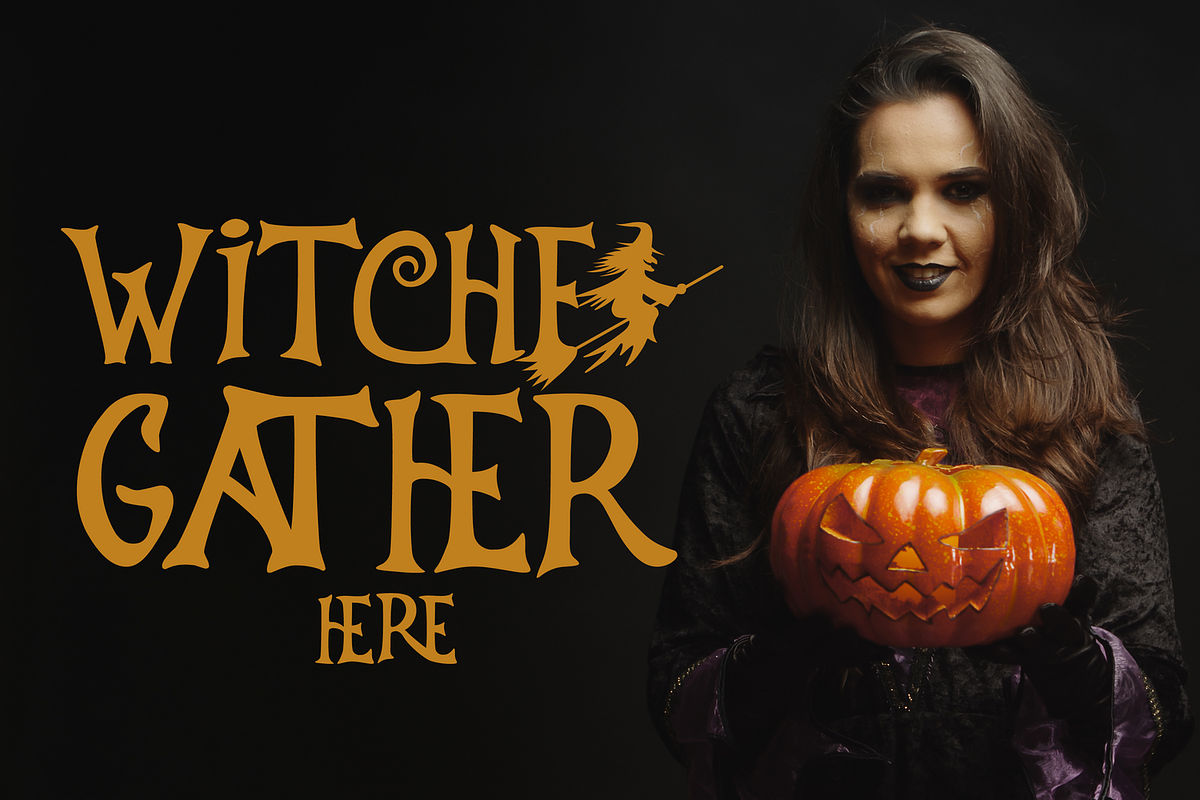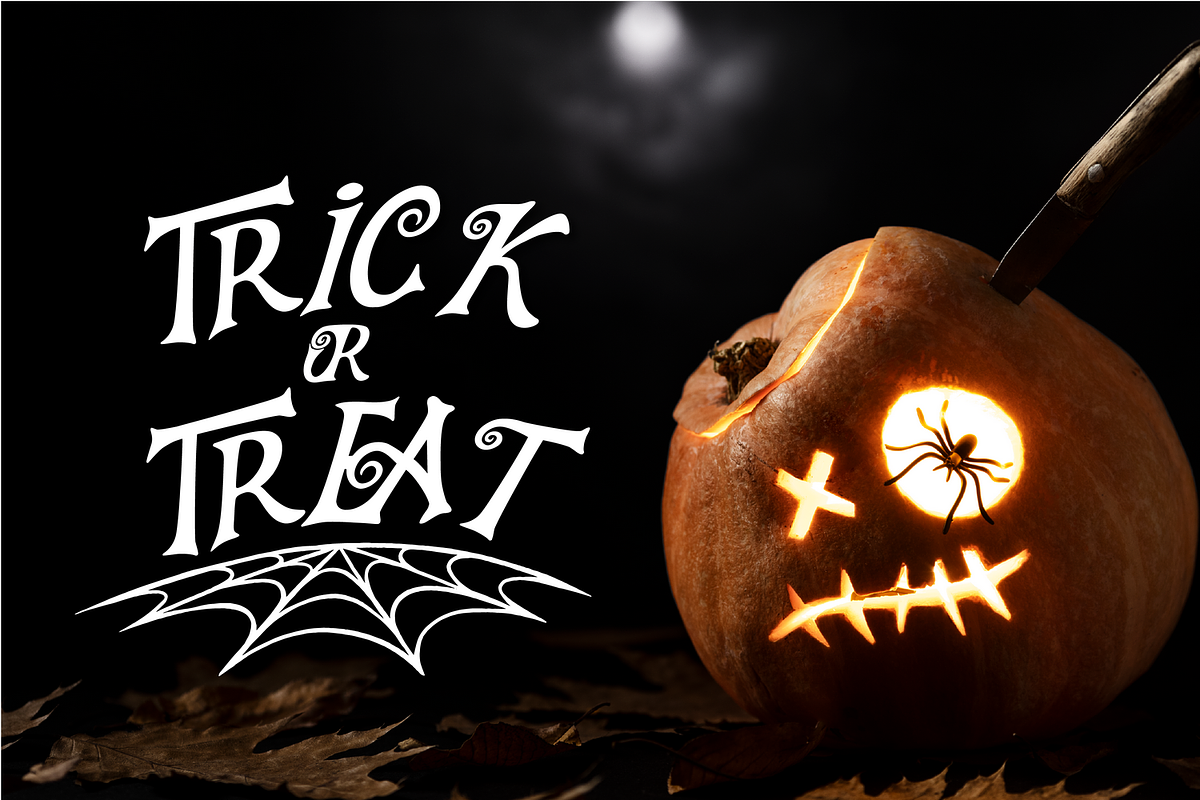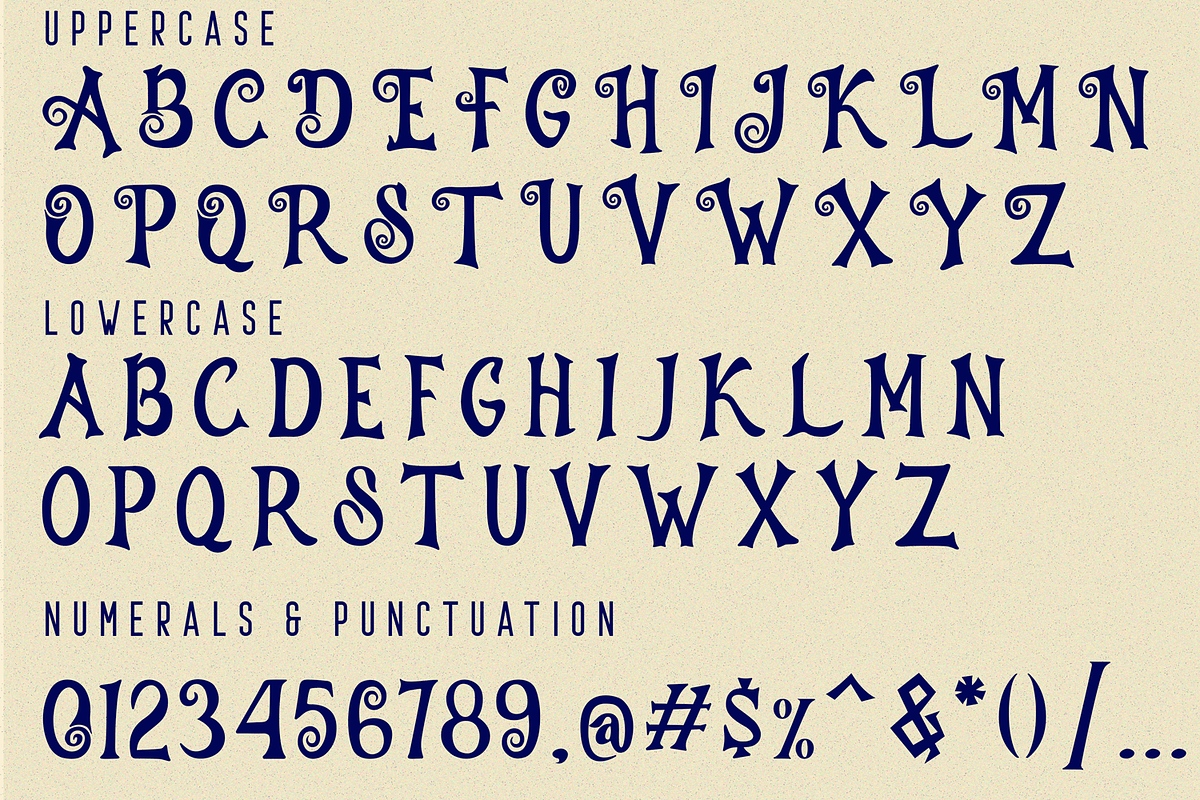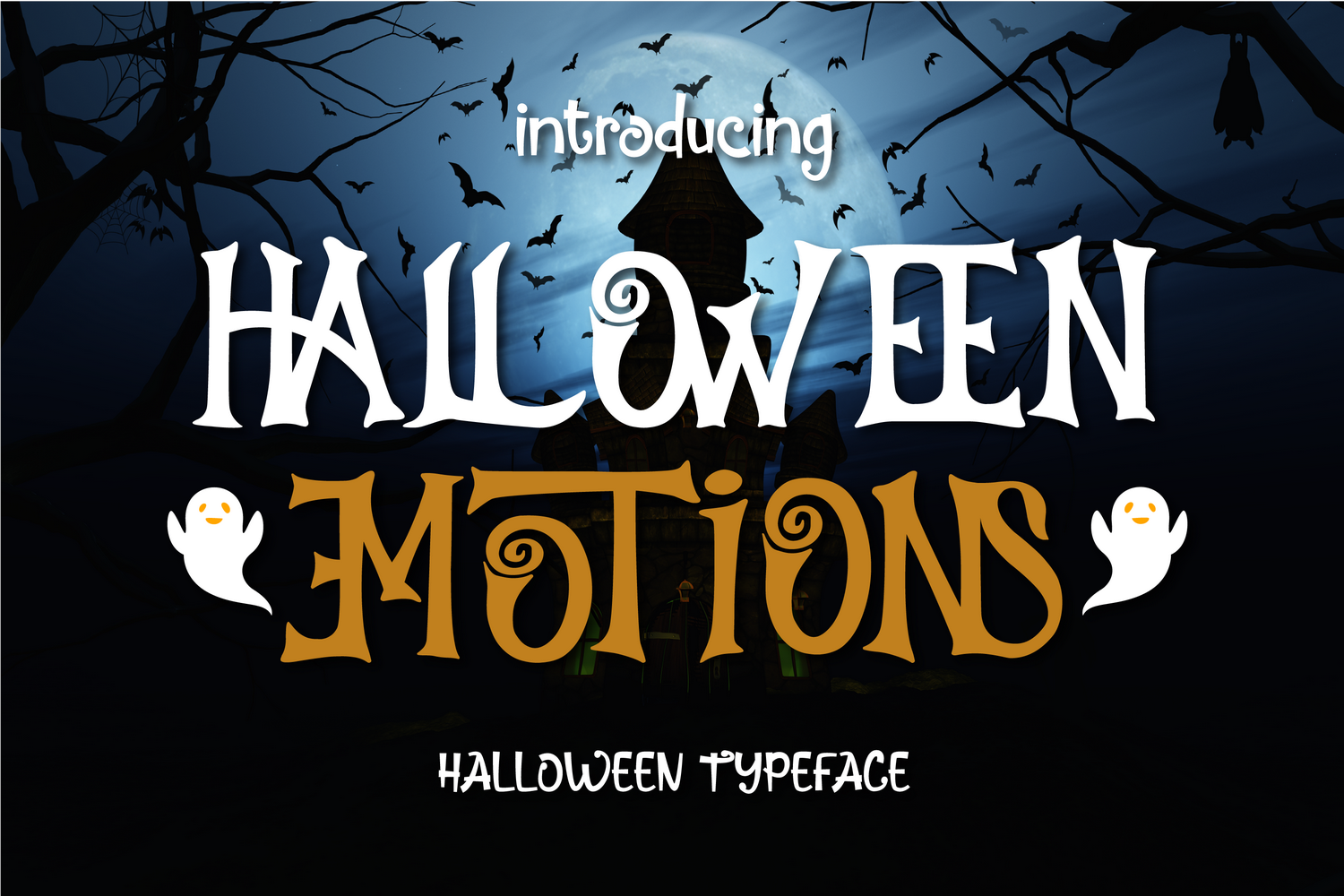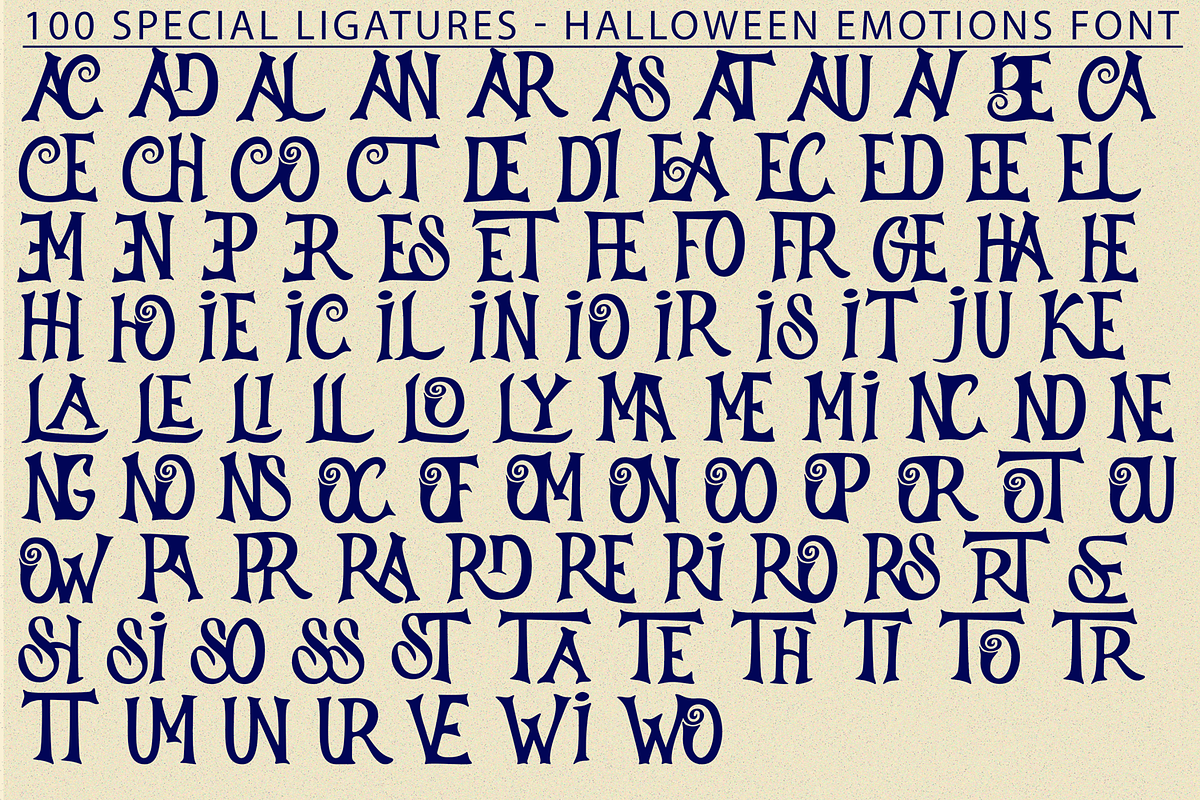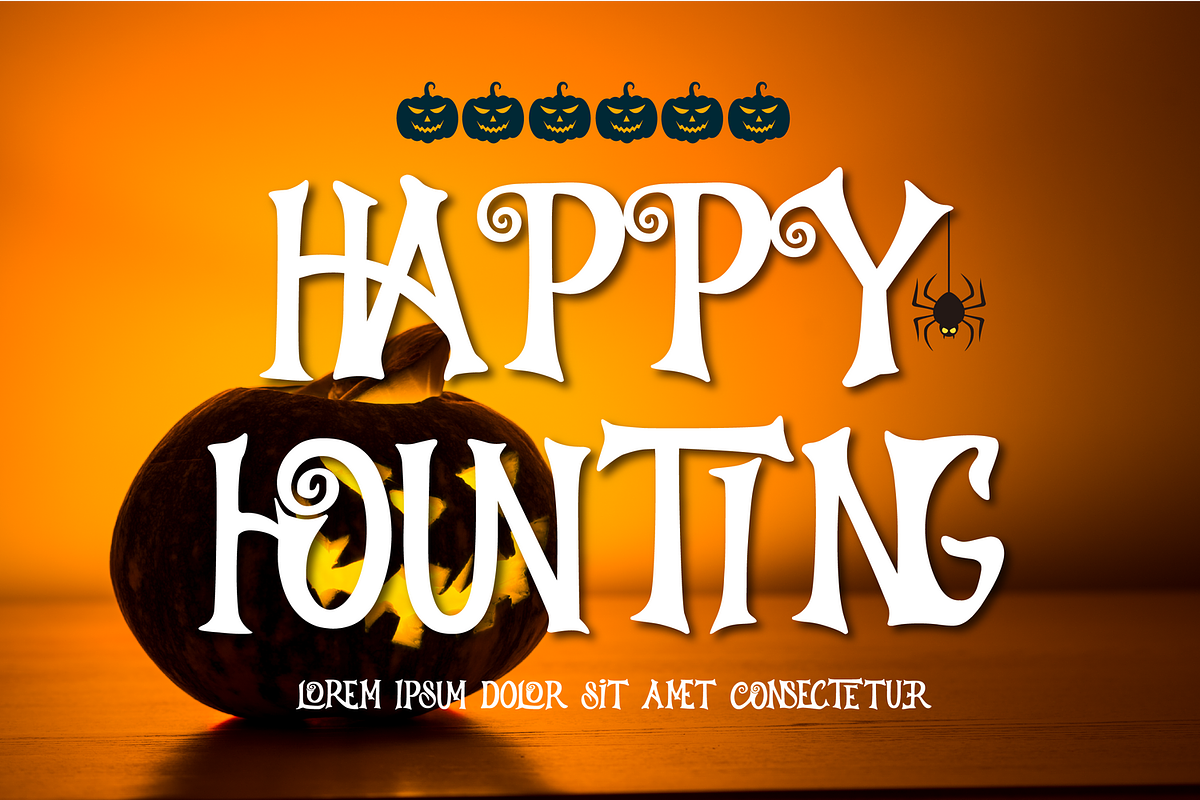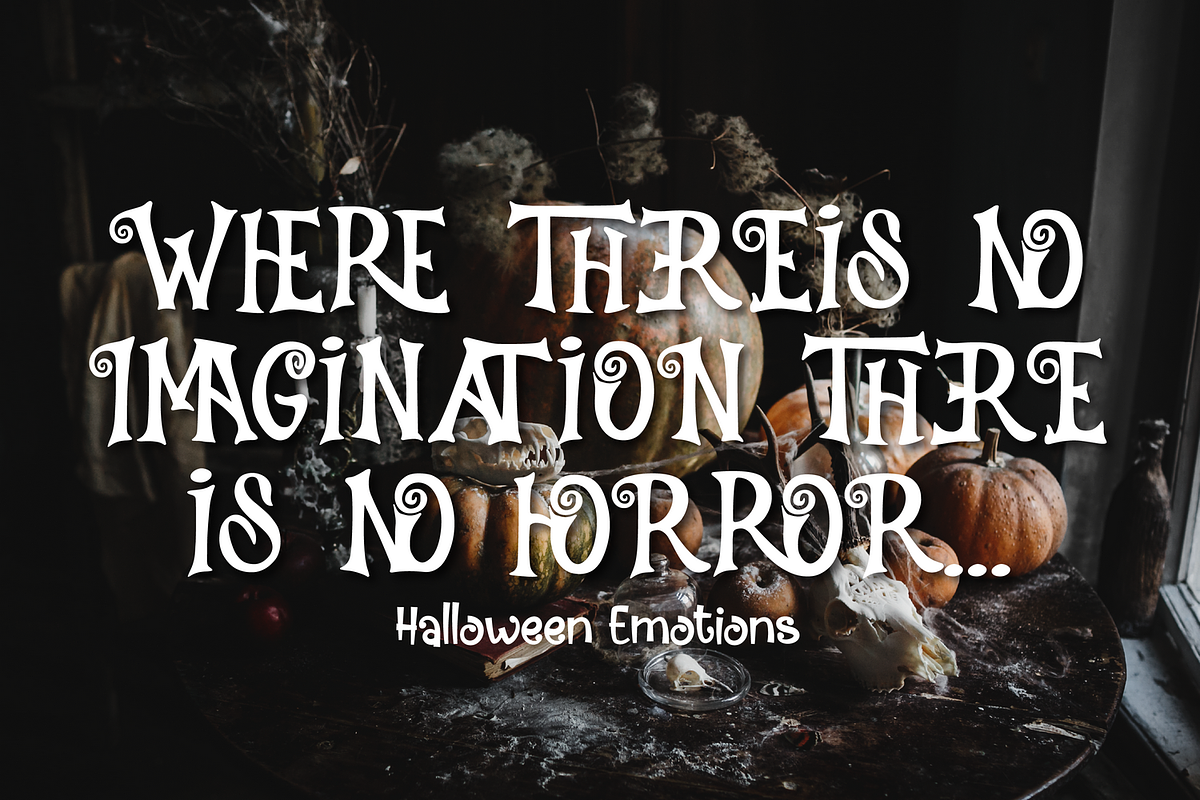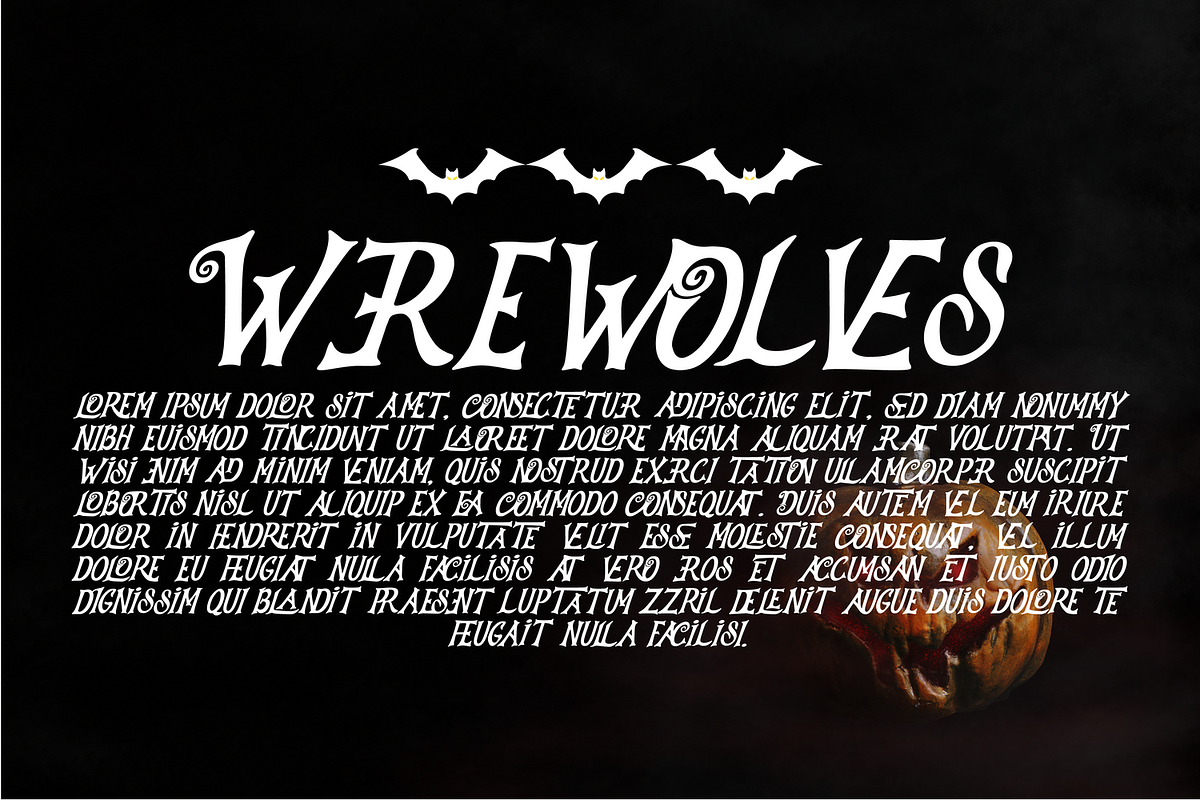
Halloween Emotions Font
Halloween Emotions Font is a vintage and spooky display font. It's a display font inspired by twig of the halloween tree. This font has strong character with fantasy, scream, mystical feel. It is the perfect display font for creating spooky Halloween designs. Add it now to your font library and start creating thrilling projects that will amaze your audience.
Halloween Emotions was built with OpenType features and includes 100 ligatures, alternate, numbers, punctuation, and it also supports other languages.
AC AD AL AN AR AS AT AU AV BE CA CE CH CO CT DE DI EA EC ED EE EL EM EN EP ER ES ET FE FO FR GE HA HE HI HO IE IC IL IN IO IR IS IT JU KE LA LE LI LL LO LY MA ME MI NC ND NE NG NO NT NS OC OF OM ON OO OP OR OT OU OW PA PR RA RD RE RI RO RS RT SE SH SI SO SS ST TA TE TH TI TO TR TT UM UN UR VE WI WO
This font also included full set of:
- Special Ligatures